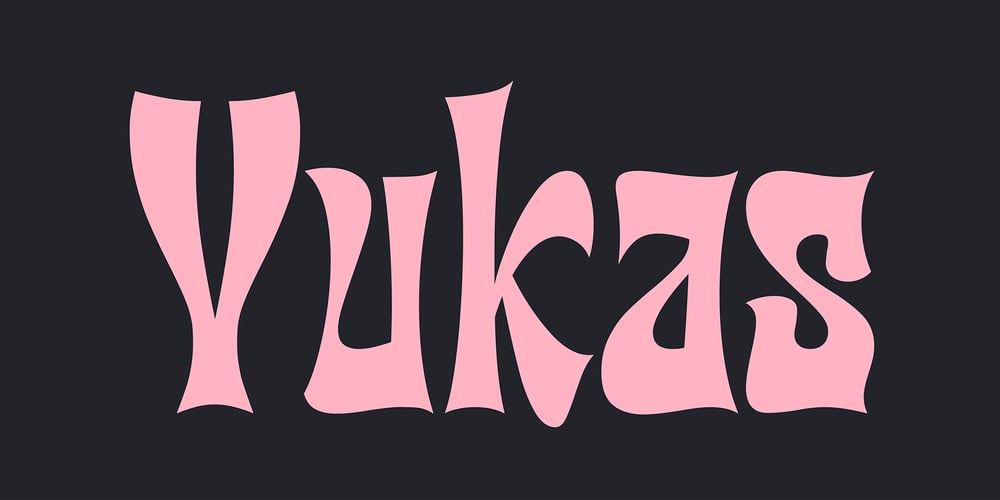
Yukas Font Family was designed by Alex Camacho and published by Alex Camacho Studio. Yukas contains 1 styles and family package options. Yukas is a funky and sexy typeface where the proportions are based on the optical balance between black strokes and white shapes. Ideal to enjoy on a large scale. It takes its references from the psychedelic movement, old-school western movie posters, and mid-19th century American wood type with those big, heavy capital letters.Includes several Open Type alternatives to customize your design however you want.